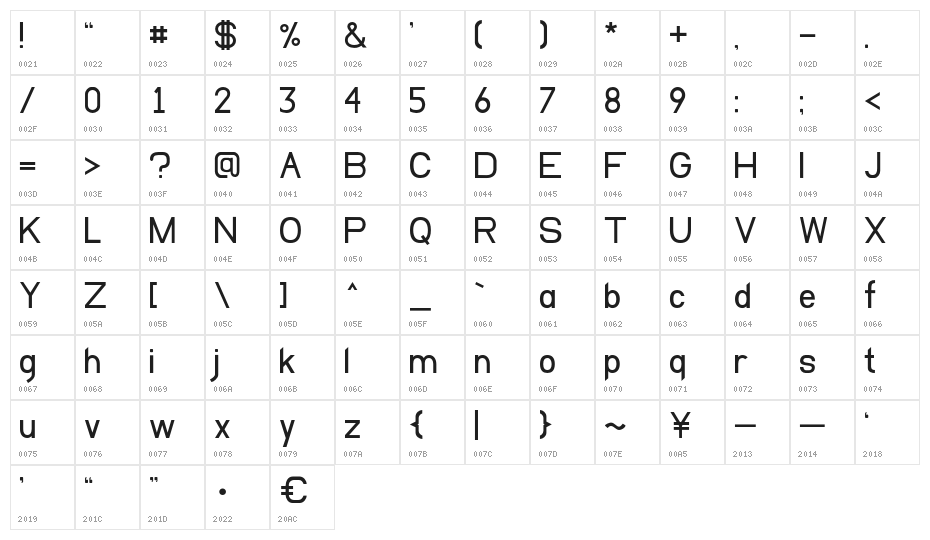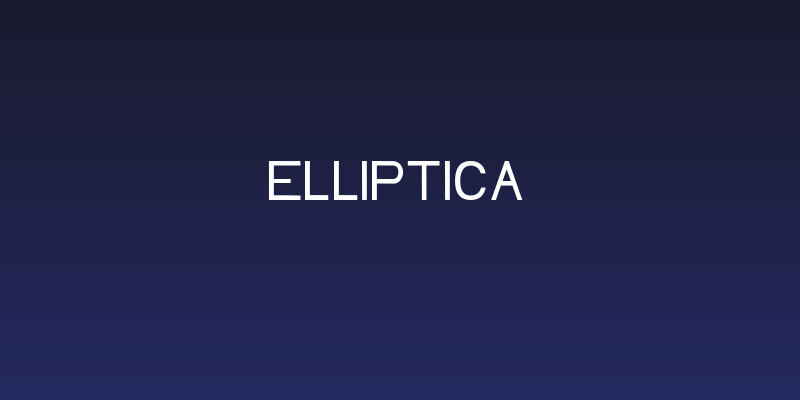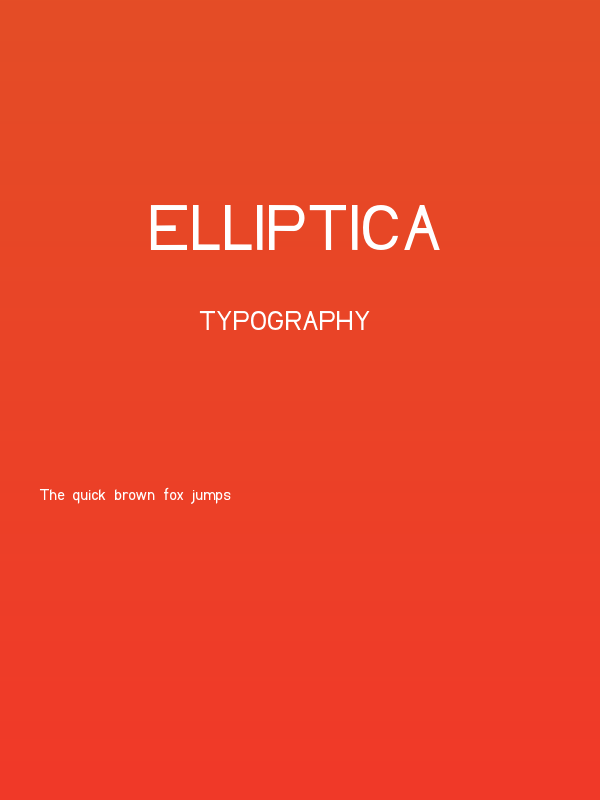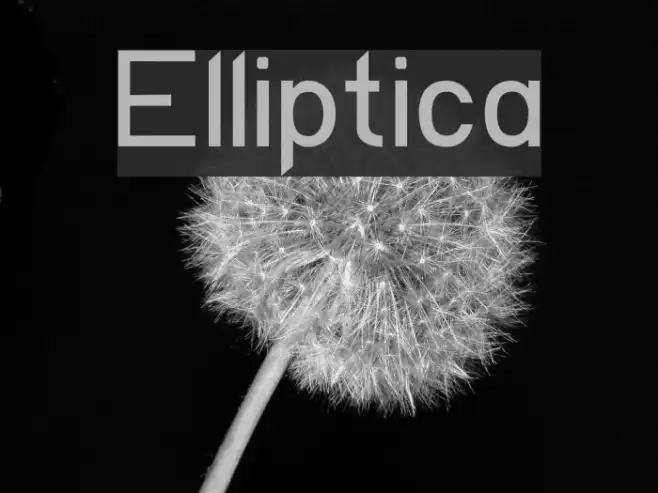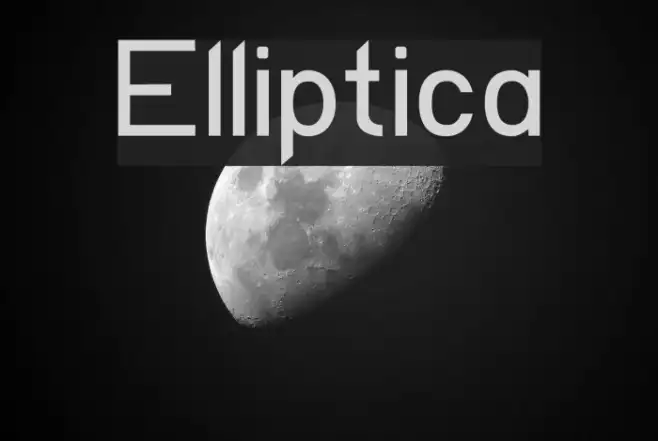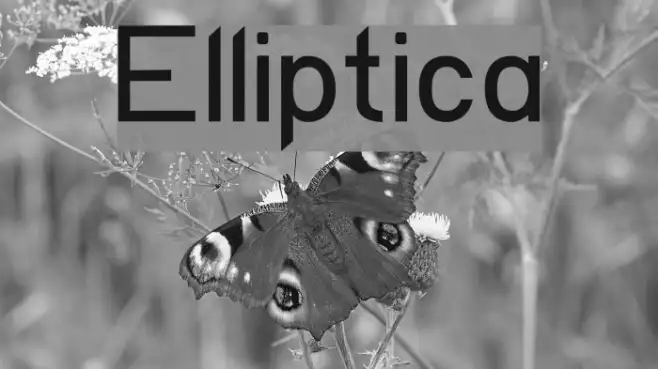
Elliptica Font
Elliptica Description
This font features a clean and modern sans-serif design, characterized by its geometric shapes and uniform stroke widths. The uppercase letters are bold and striking, with a slightly condensed appearance that gives a compact feel. The lowercase letters maintain a consistent height and width, ensuring readability and balance. The numerals are clear and straightforward, matching the overall aesthetic of the alphabet. Special characters are well-integrated, offering a complete set for versatile use. The font's simplicity and clarity make it suitable for a wide range of applications, from digital interfaces to print media.
| Use Case | Headlines, Logos, Digital Interfaces |
| Proposed Projects | Ideal for branding, digital interfaces, signage, and editorial design. |